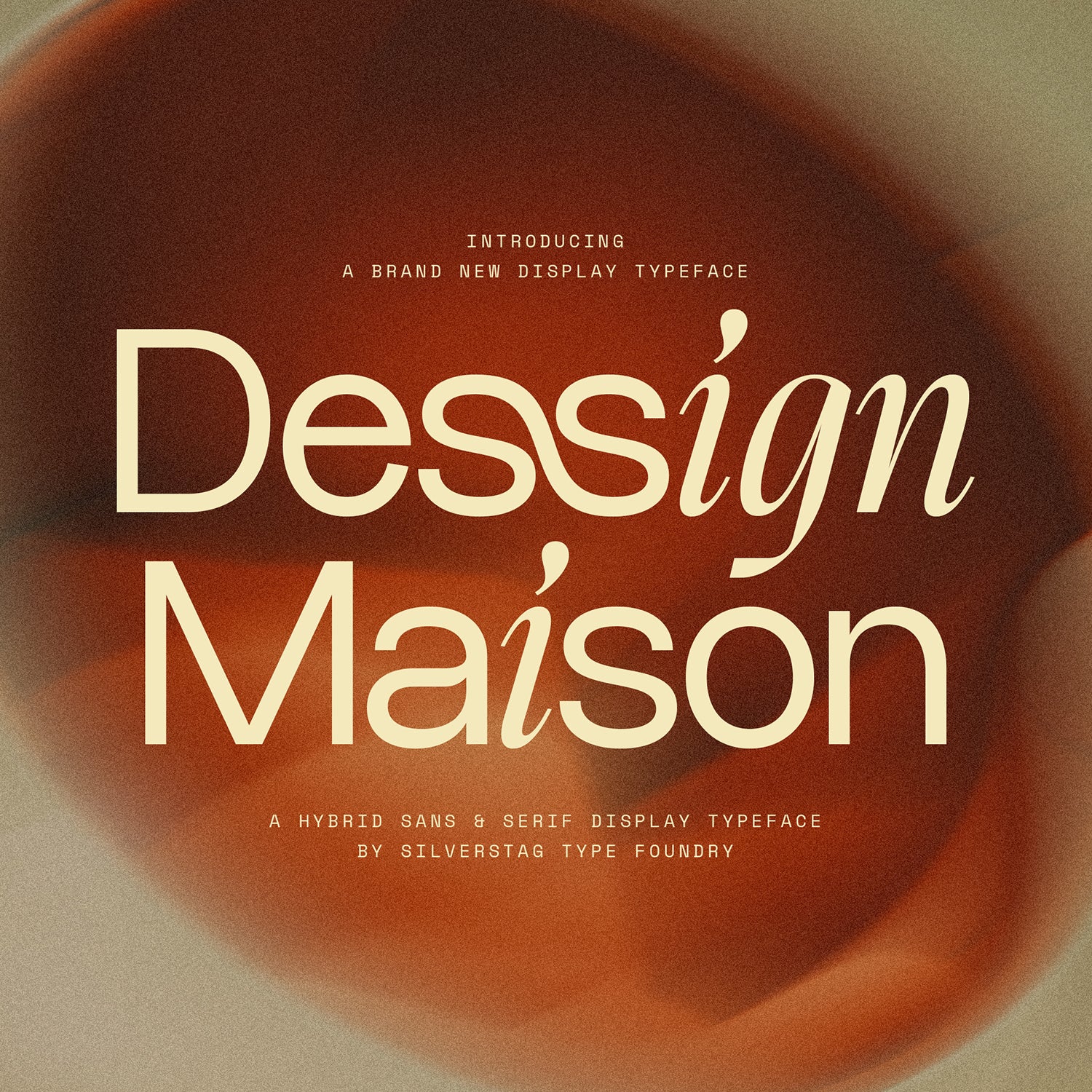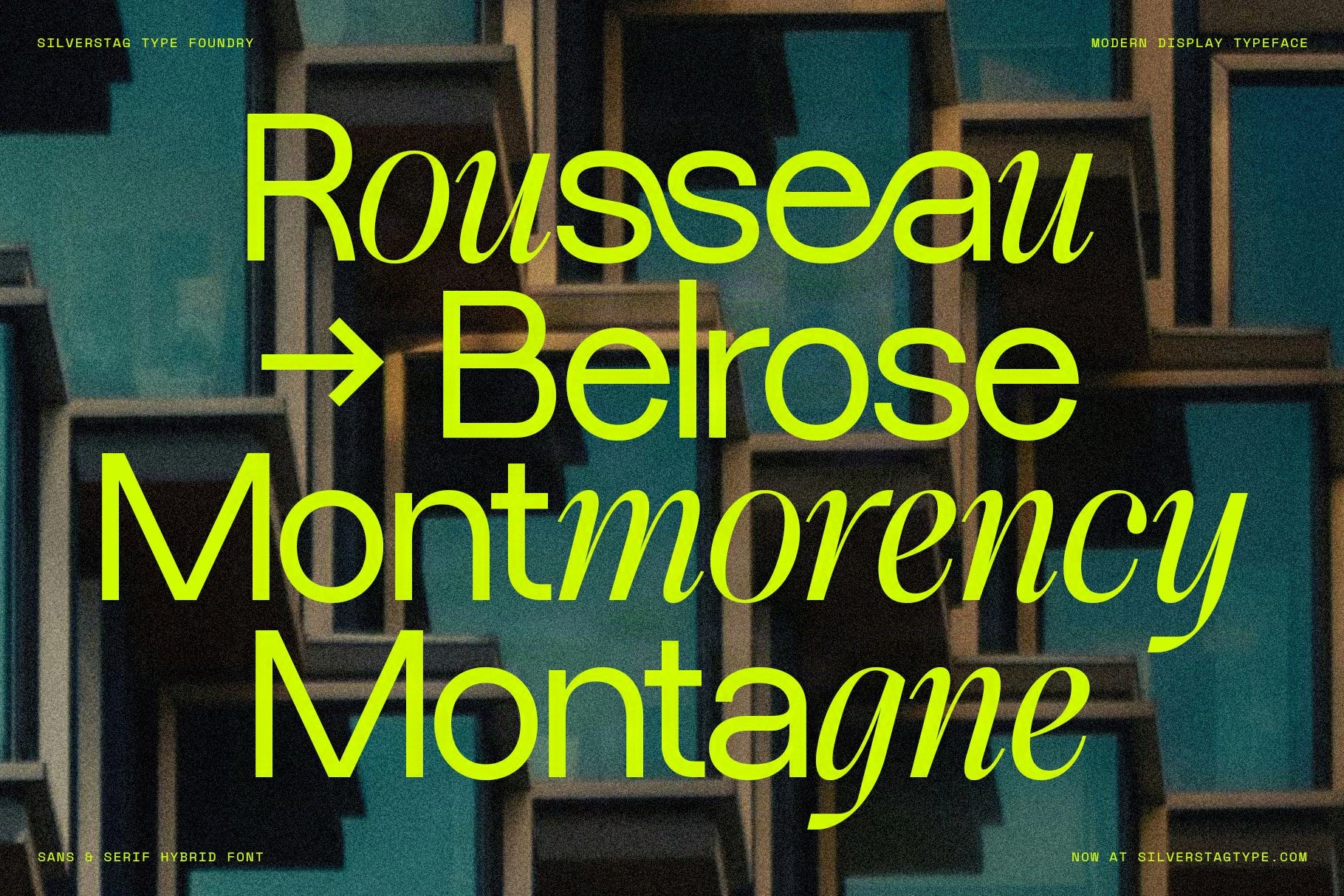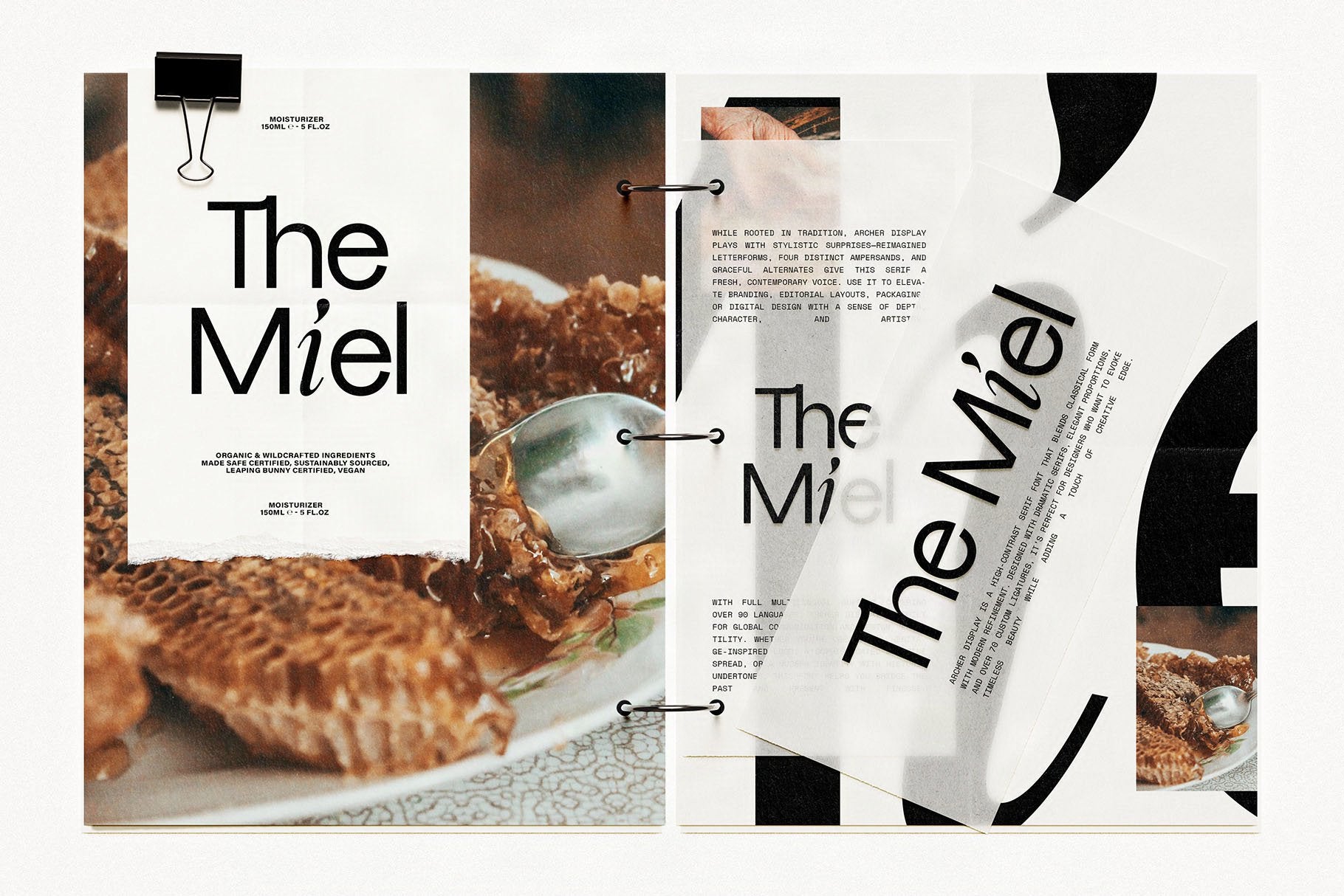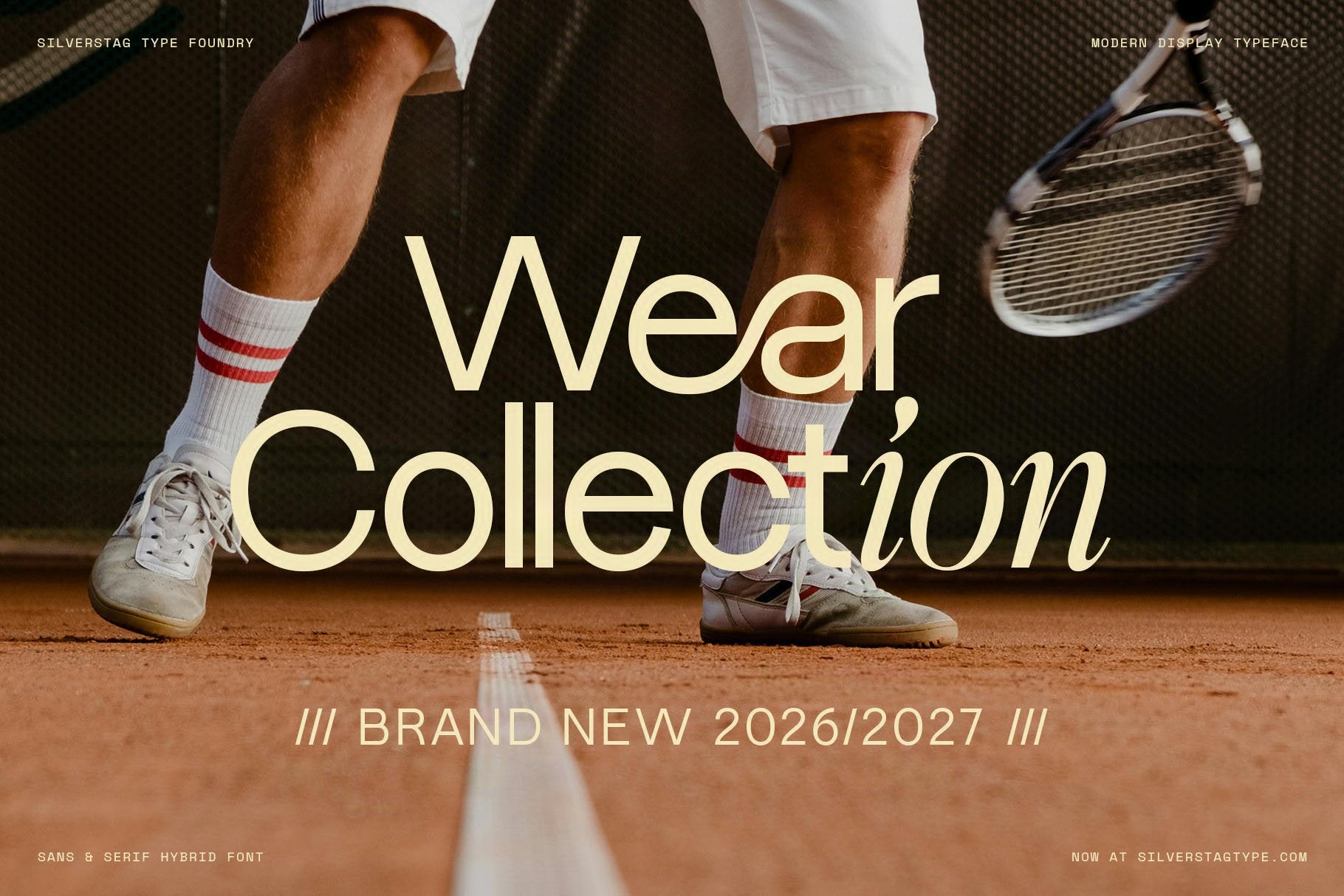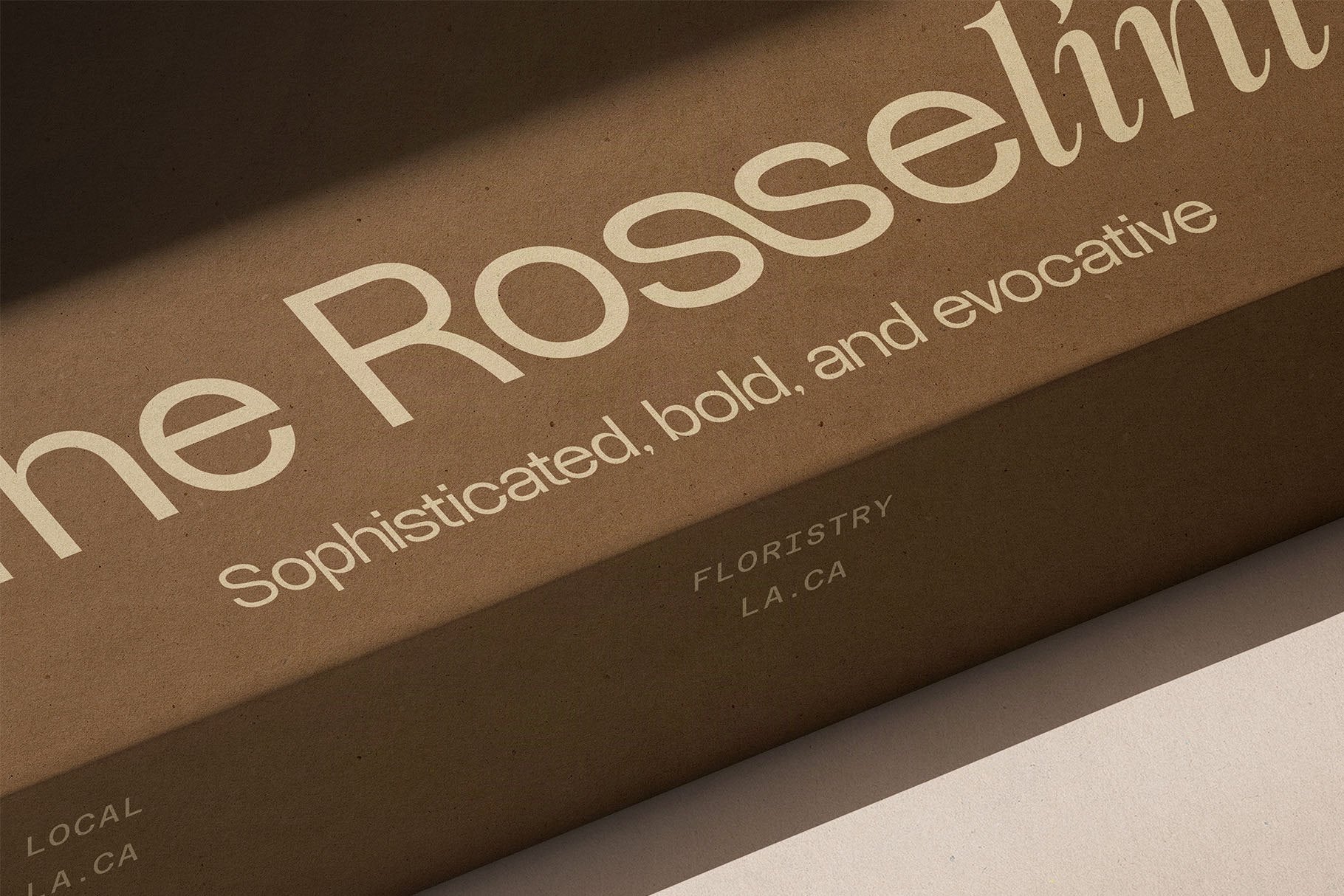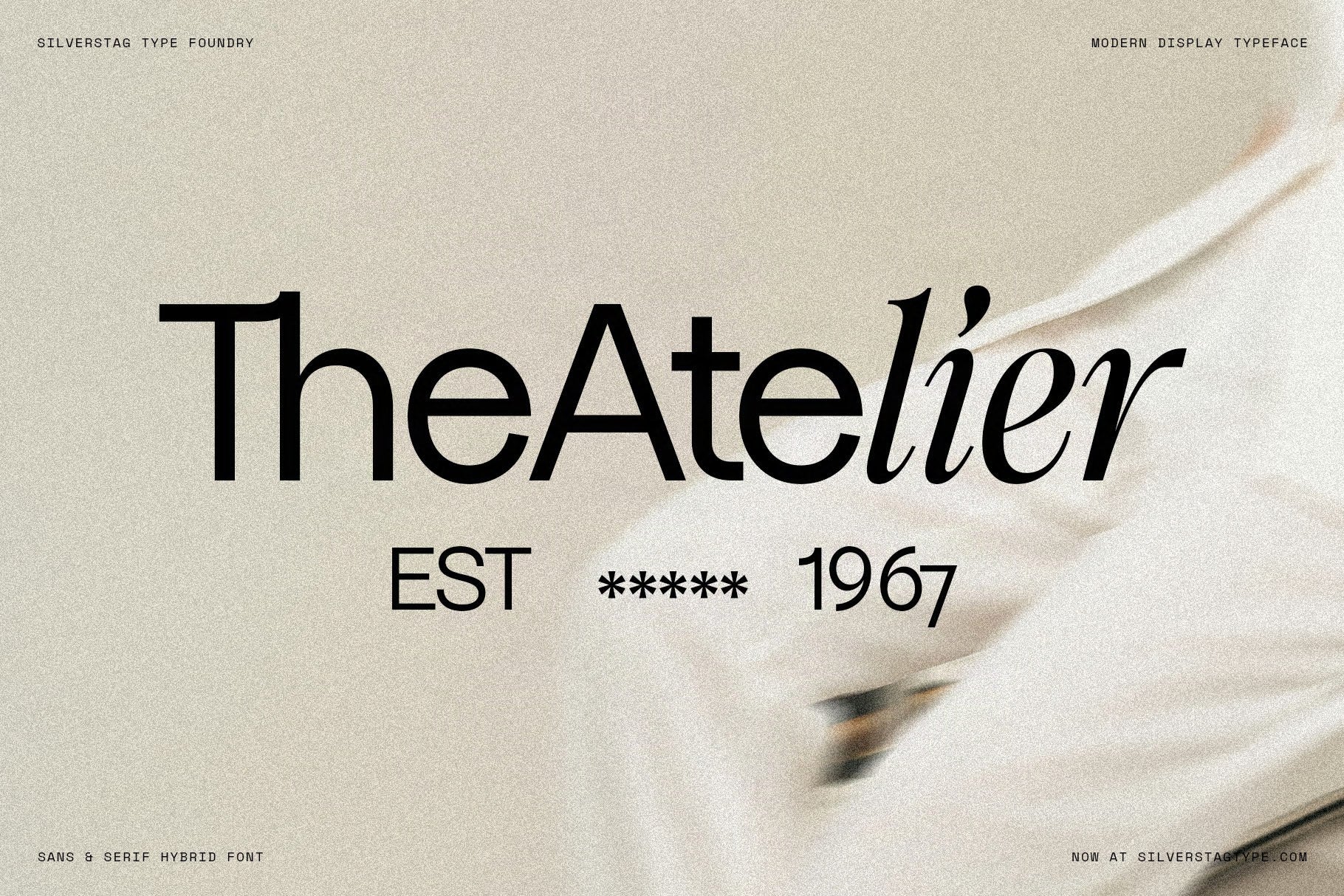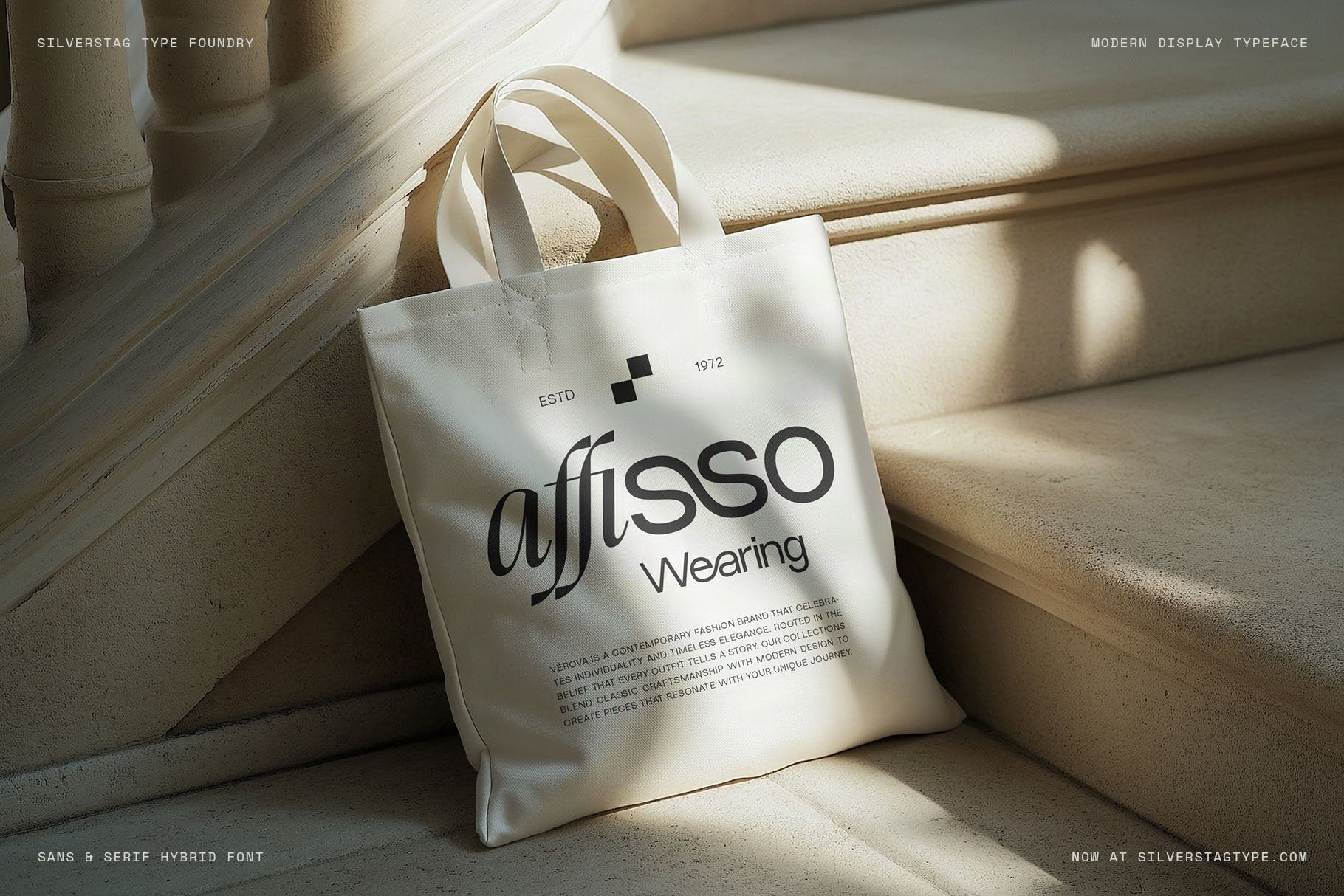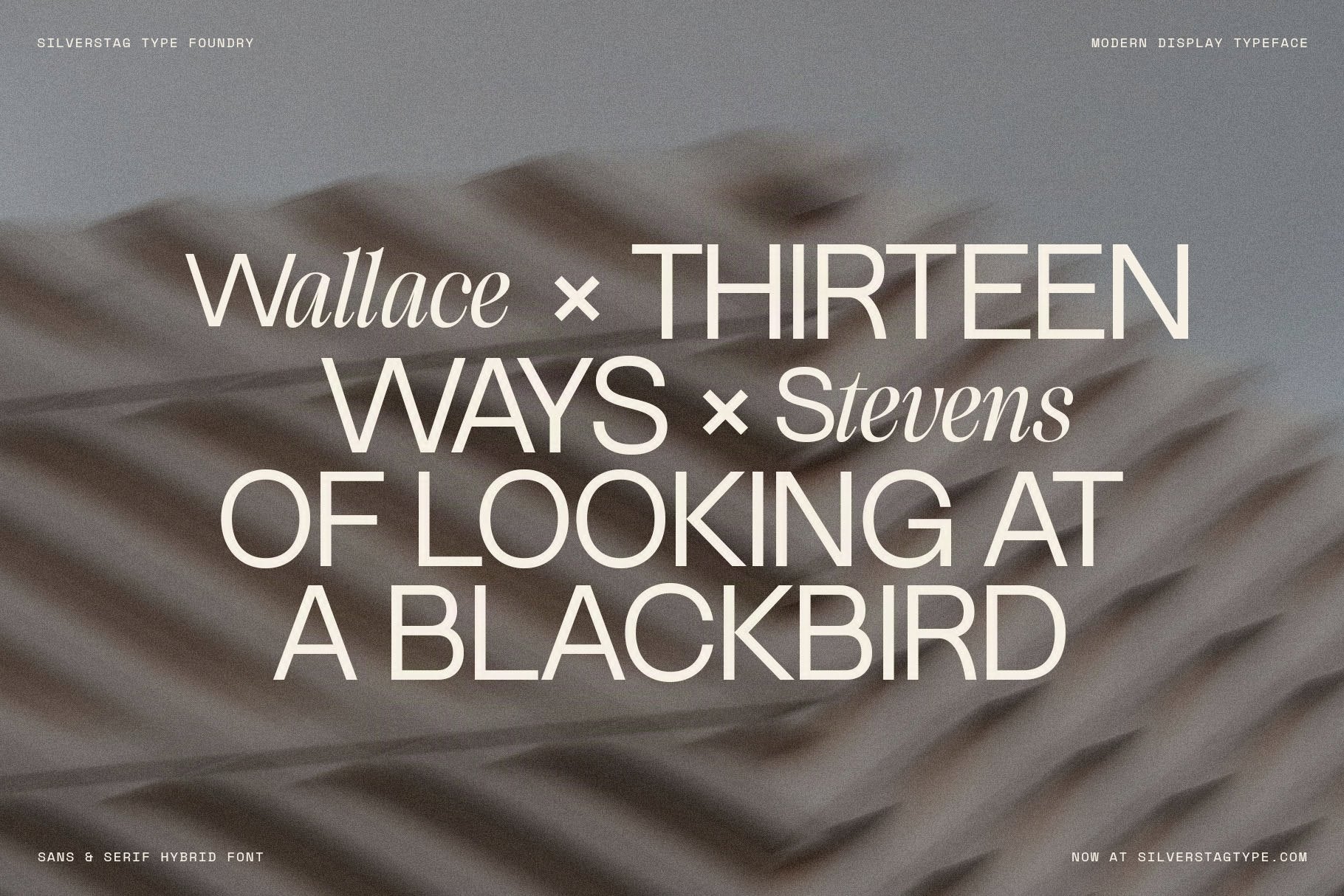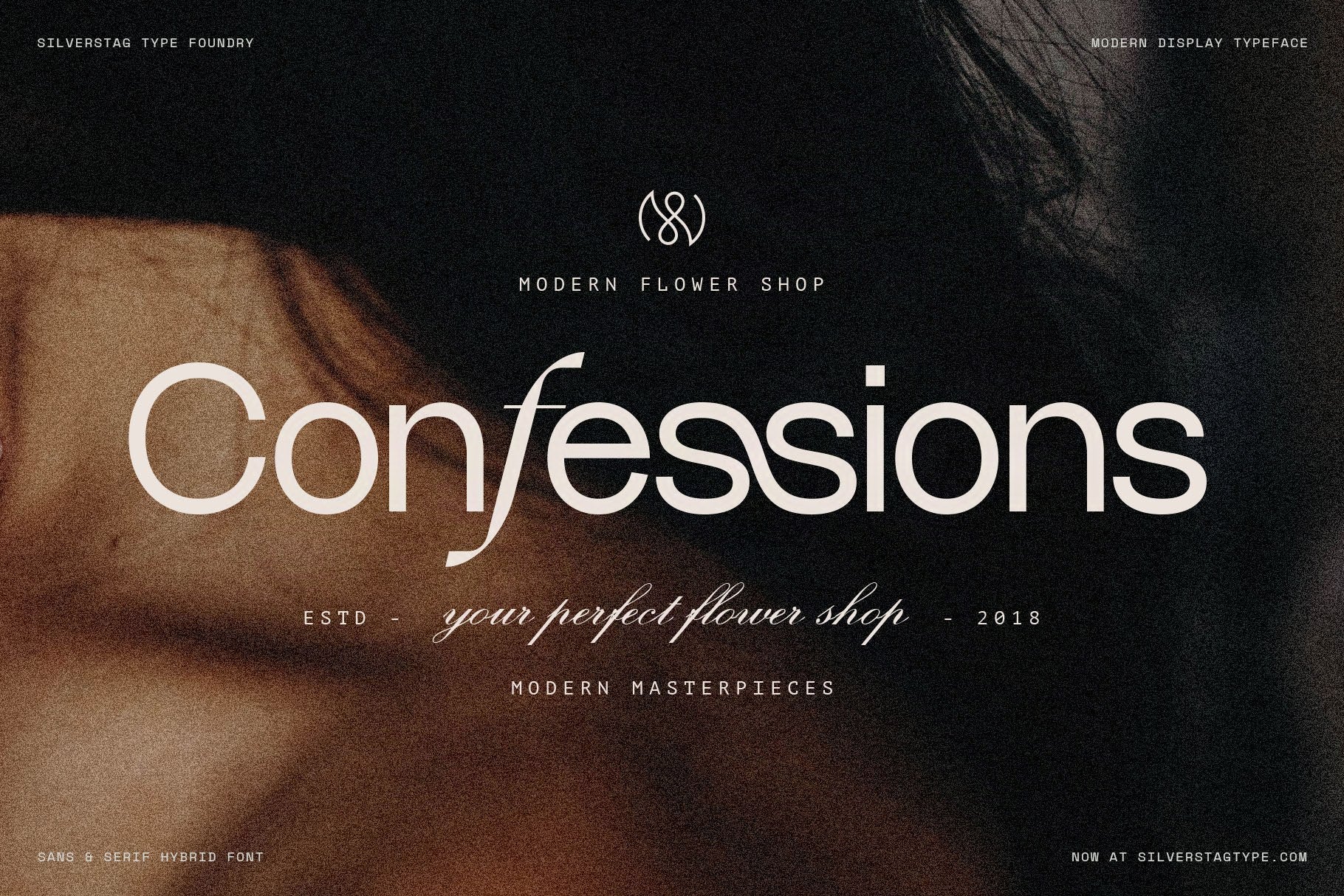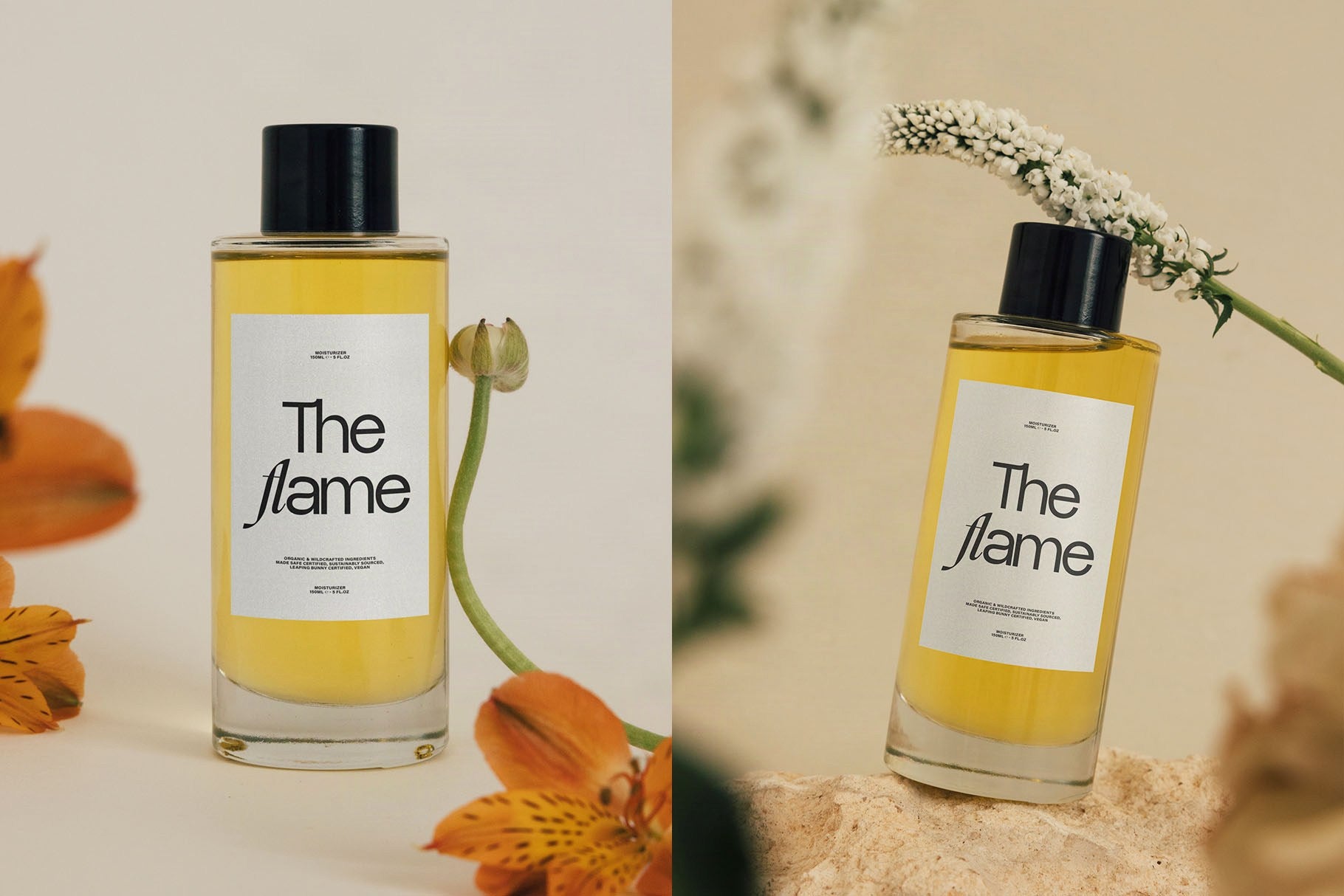
SLTF Dessign Maison - Hybrid Display Font
One file. Two personalities. Zero compromise.
SLTF Dessign Maison is a hybrid display typeface where geometric sans letterforms and calligraphic strokes coexist within the same font. Not two fonts. Not a paired family. One design where the i carries a teardrop, the f crosses like a calligraphic hand, and the surrounding letters stay clean and geometric — and the whole thing holds together as one cohesive system.
The hybrid effect is built into the letterforms themselves. Set a single word and it already does two things at once. That tension — modern and expressive, structured and fluid — is what makes it work across such a wide range of briefs: fashion brand identities, luxury packaging, editorial mastheads, hospitality branding, food and beverage, advertising.
• Hybrid letterform system
• Geometric sans and calligraphic within single glyphs
• OpenType features: stylistic alternates, ligatures
SLTF Dessign Maison is a hybrid display font that combines geometric sans letterforms with calligraphic strokes within a single design, featuring a cohesive system of unique glyphs. This font includes one style (Regular), supports over 100 languages (Latin Extended), and offers OpenType features such as stylistic alternates and ligatures.